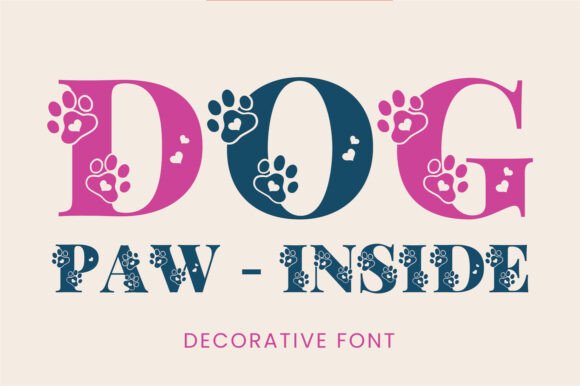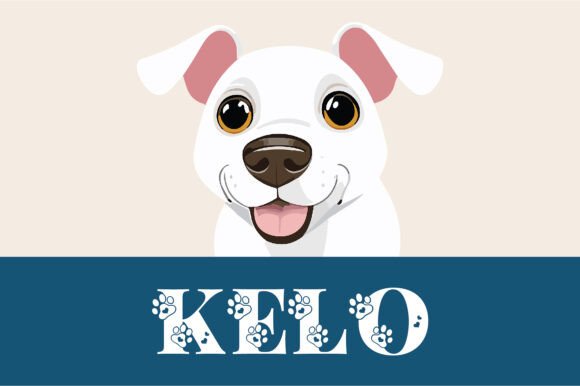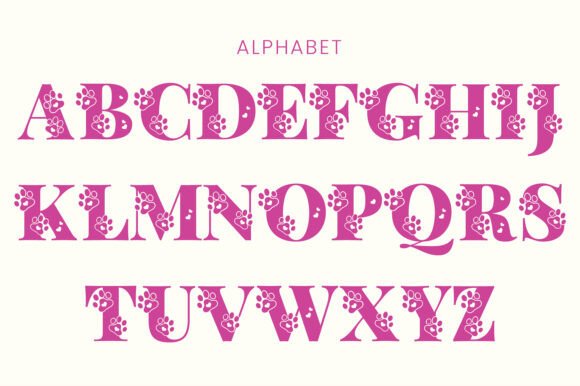
Dog Paw Inside Font
Dog Paw Inside font is a bold, playful typeface filled with adorable dog paw prints. Perfect for pet-themed crafts, kids’ projects, or any design that needs a fun and friendly touch. Whether you’re creating for a pet boutique, a dog birthday event, or just want to add a playful touch to your crafts, Dog Paw Inside brings charm and personality to every design.